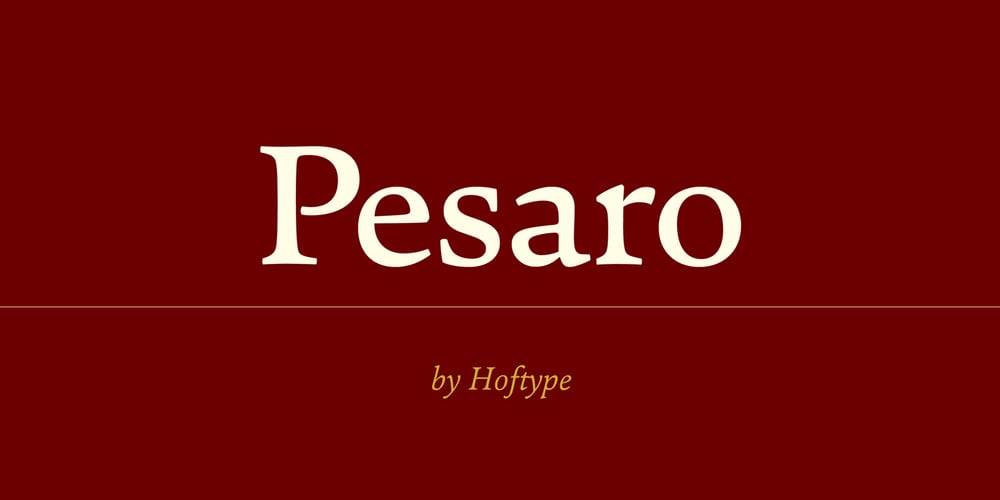
Pesaro
Pesaro font
Pesaro Font Family was designed by Dieter Hofrichter and published by Hoftype. Pesaro contains 12 styles and family package options. Pesaro is a new text typeface with a strikingly robust but charming appearance. Inspired by early prints from Venice like Jensen and Manutius, it follows its own formal concept of a contemporary design – a stable typeface with strong text qualities and graphic appeal. The Pesaro family comprised 12 styles and is well suited for ambitious typography. It comes in OpenType format with extended language support. All weights contain ligatures, proportional lining figures, tabular lining figures, proportional old style figures, lining old style figures, matching currency symbols, fraction- and scientific numerals and elegant swash captitals for all italic styles.